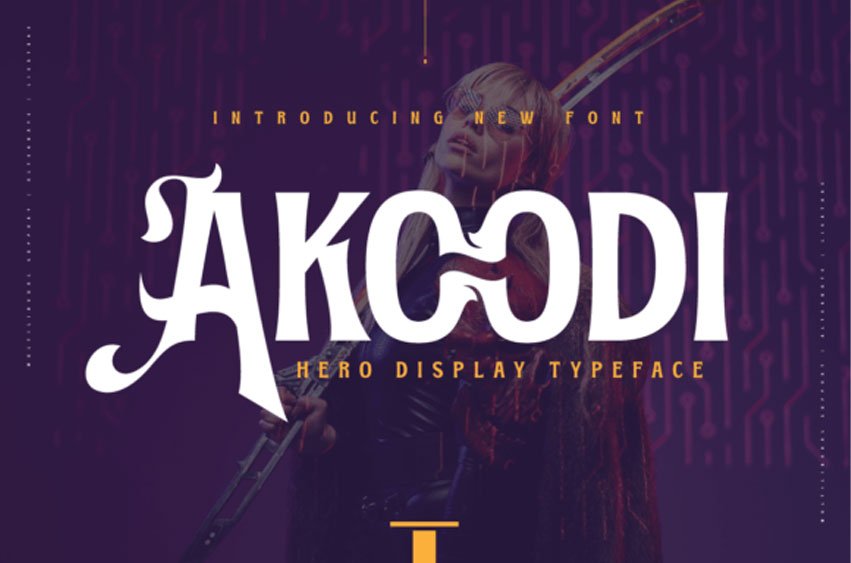
Akoodi Font is a bold and stylish display font featuring a superhero theme that’s perfect for creating eye-catching titles and headlines for movie posters and graphic design projects.
With its strong, prominent, and unique character design, Akoodi is a versatile font that can be used for a wide range of projects, from branding and marketing materials to book covers and packaging designs. It is also PUA encoded which means you can access all of the glyphs and swashes freely!